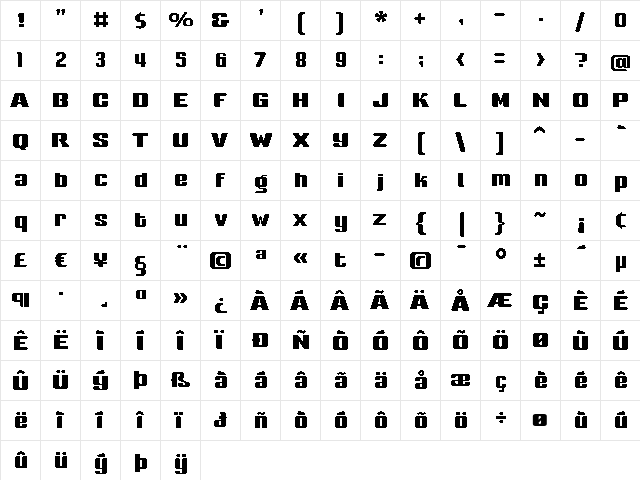
Sneakers Pro Medium
| Foundry | Neil Summerour/Positype |
| Designer | Neil Summerour/Positype |
Design Context for Sneakers Pro Typeface
Sneakers Pro is a composed and adaptable typeface that performs quietly and consistently across a wide range of design contexts.